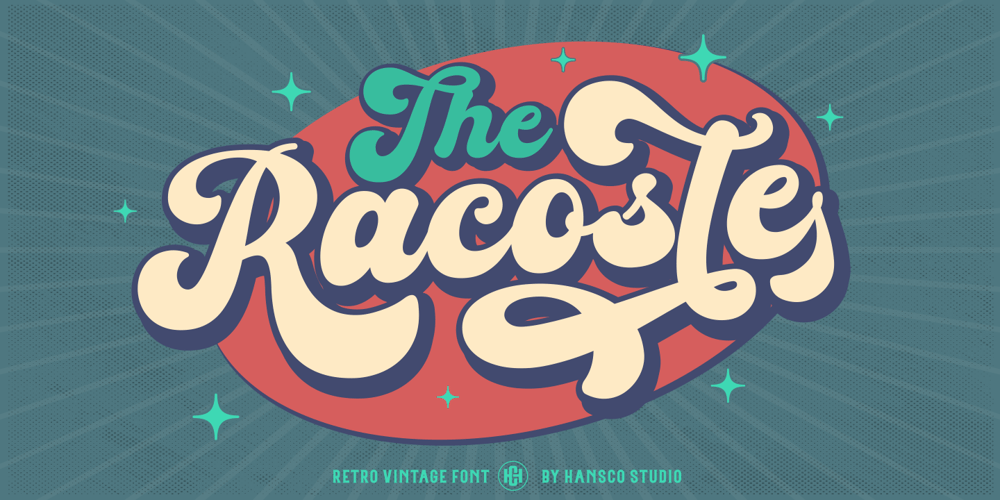
Racoste Font Family was designed by Burhan Afif and published by HansCo. Racoste contains 1 styles and family package options. Racoste is a retro vintage lettering font style. Use this display font to add that special retro touch to any design idea you can think of!. Equipped with all complete characters ranging from uppercase letters, lowercase letters, numbers, punctuation marks and multi-lingual support, this font is ready to be used in any project. Very suitable for logotype, Stickers, Packaging design, Cricut Project, headlines, brand identity, t shirt or apparel industry, posters, magazines, books, YouTube, Instagram, websites, or any of your creative design projects.Enjoy!